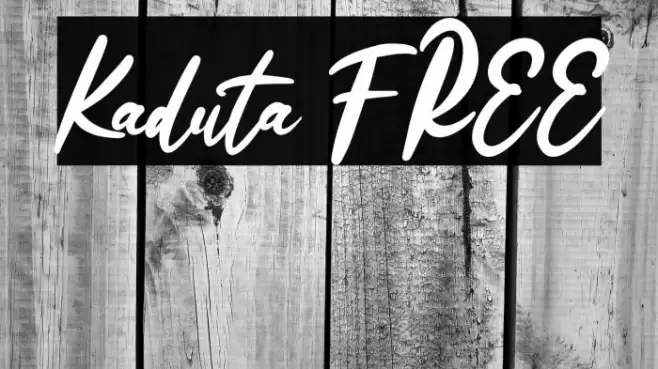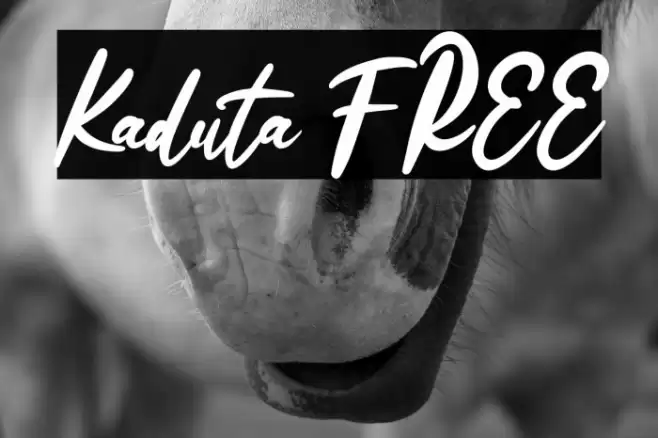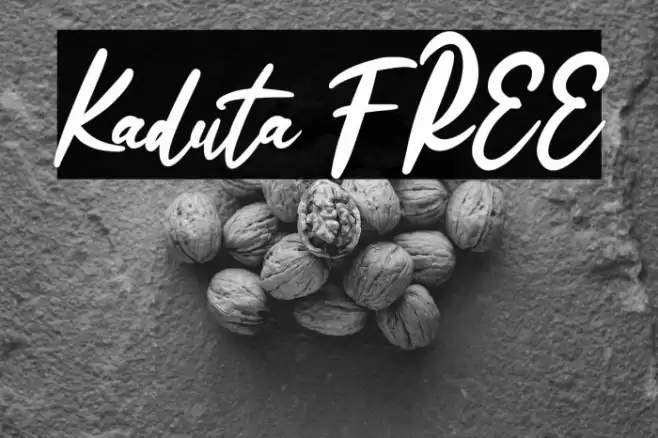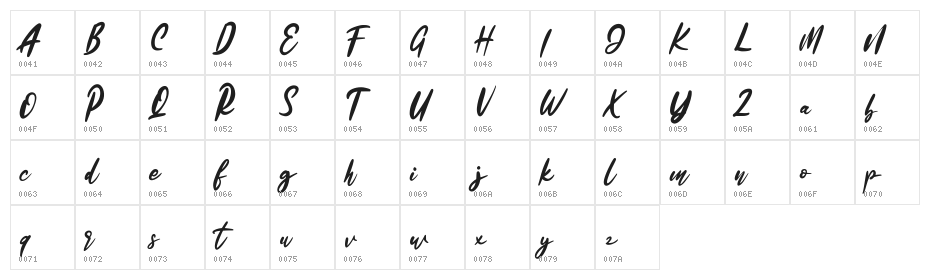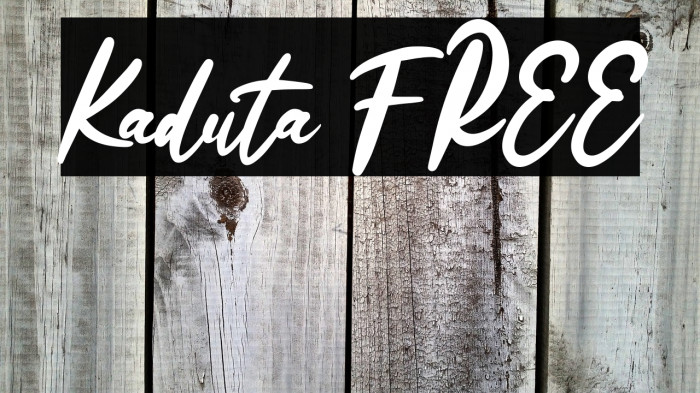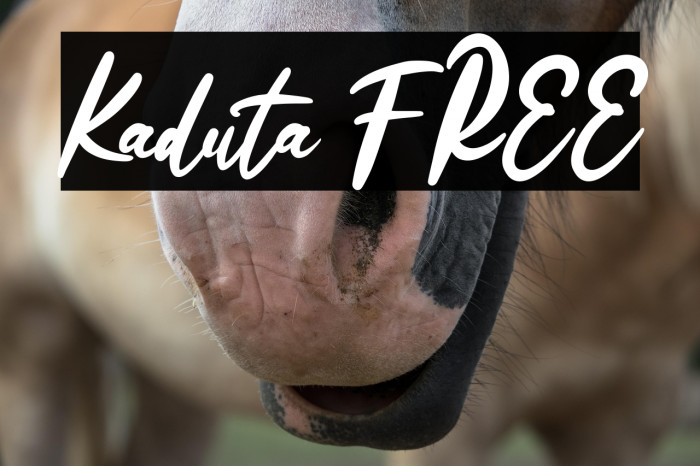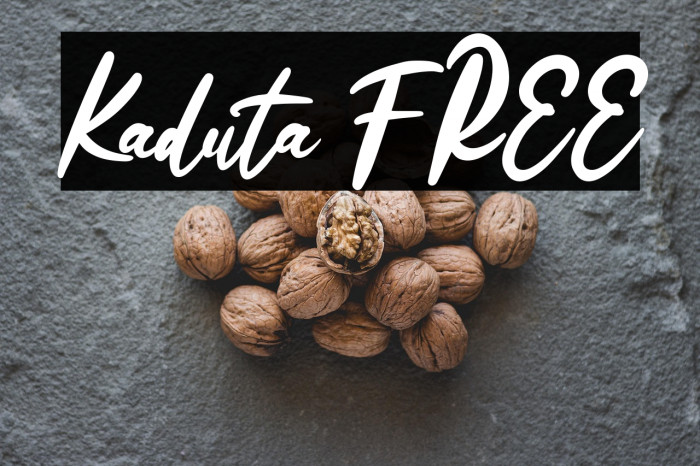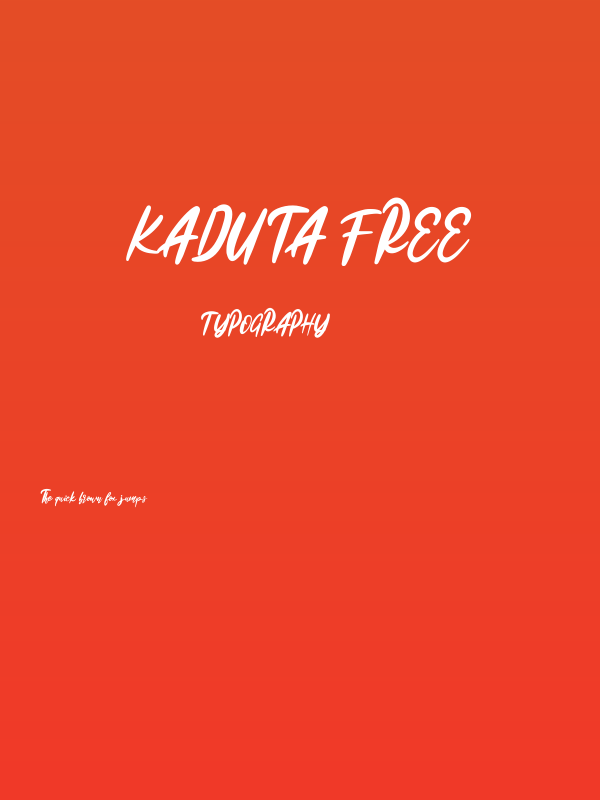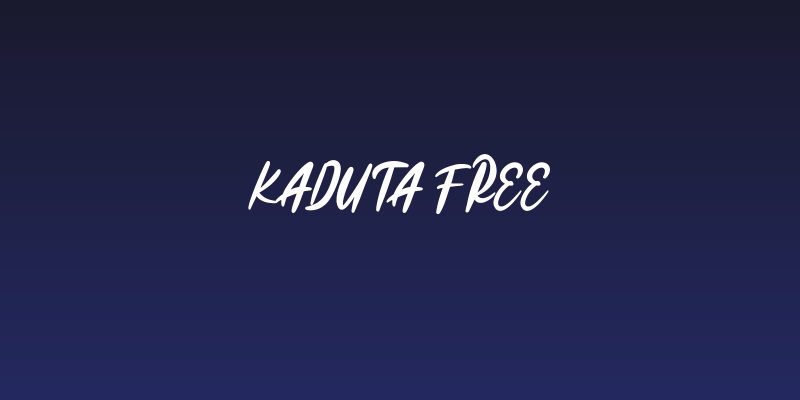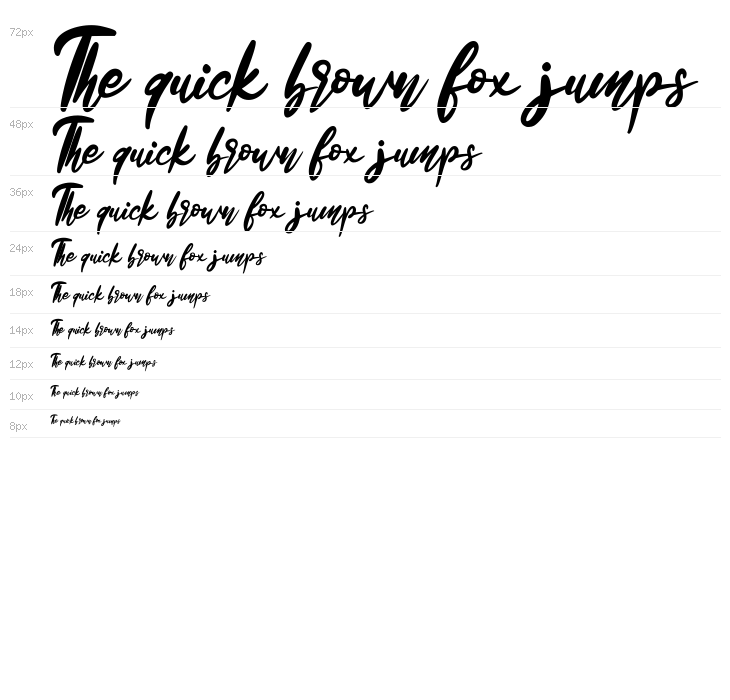
Kaduta FREE Font
Kaduta FREE Description
This font showcases a bold and expressive handwritten style, characterized by its fluid and dynamic strokes. The letters are slightly slanted, giving a sense of movement and energy. The uppercase letters are bold and prominent, while the lowercase letters maintain a consistent flow with occasional flourishes. The font includes a full set of uppercase and lowercase letters, numbers, and a selection of special characters. Its brush-like appearance makes it suitable for designs that require a personal and artistic touch.
A bold, expressive handwritten font with fluid strokes and dynamic style from Regular fonts.
- Proposed Projects: Ideal for branding, logos, invitations, and artistic projects that require a personal touch.
- Use Case: Logos, Headlines, Artistic projects